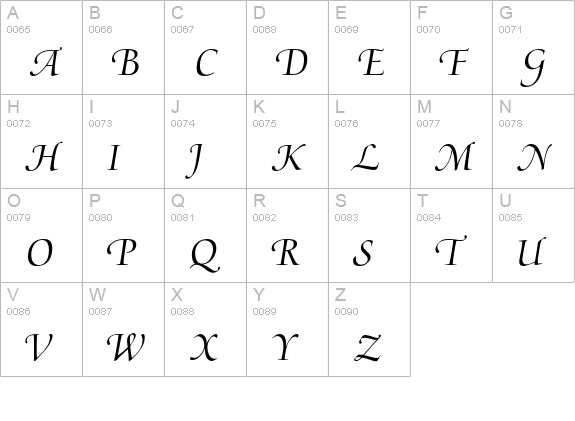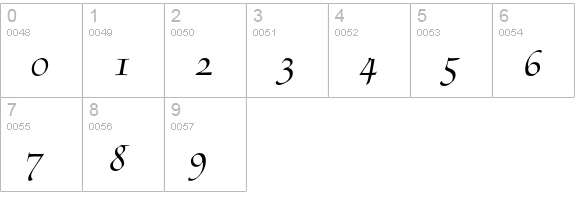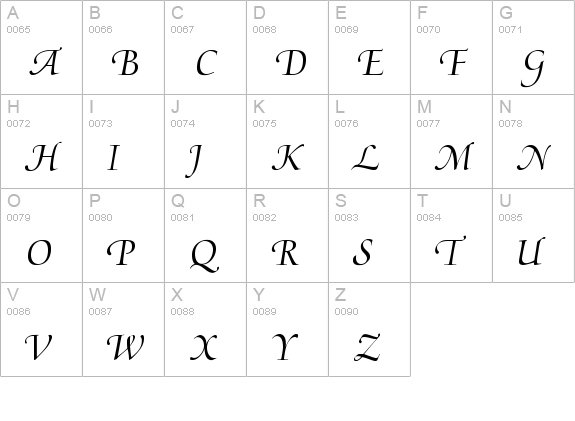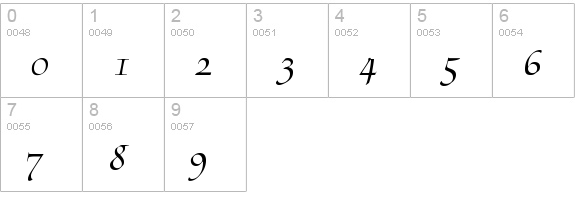
Medici Script Font Details
Introducing the exquisite Medici Script font, a stunning display typeface that is sure to elevate your designs to a whole new level of sophistication and elegance. With its graceful curves and intricate details, Medici Script exudes a sense of timeless beauty and charm. This font is perfect for a wide range of projects, including wedding invitations, greeting cards, branding, and more. Its classic yet modern style makes it versatile and suitable for a variety of design applications. The best part? Medici Script is available for free download at FontsMarket.com. Don't miss out on the opportunity to add this stunning font to your collection and bring a touch of luxury to your next project.